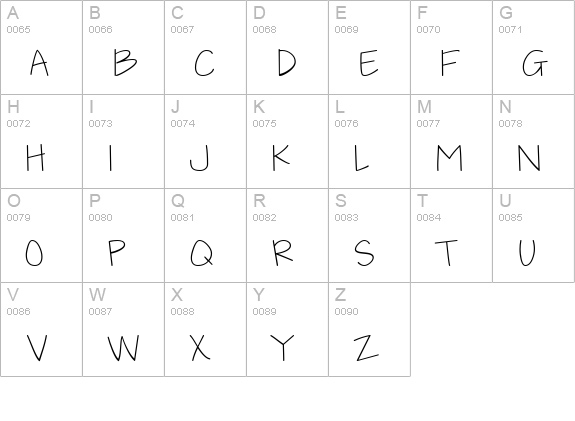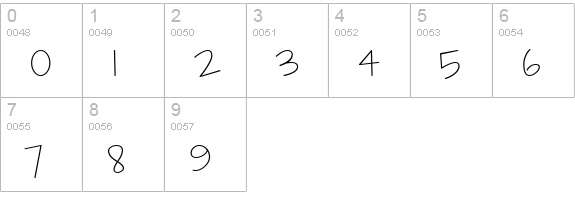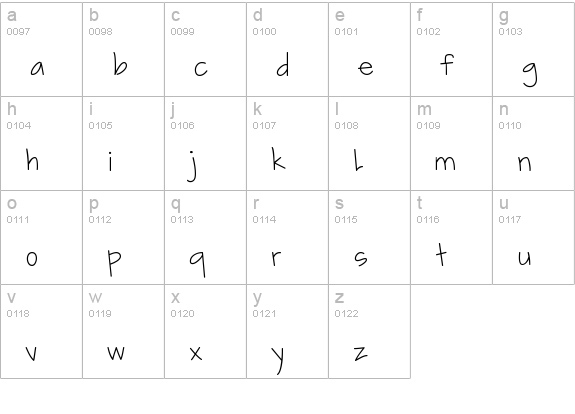
CK Penman Font Details
The CK Penman font is a stylish and elegant typeface that exudes sophistication and charm. With its graceful curves and classic appeal, this font is perfect for adding a touch of class to your designs. Whether you're creating invitations, greeting cards, or branding materials, CK Penman will elevate your projects to the next level. What's even better is that CK Penman is available for free download at FontsMarket.com. You can easily access this beautiful font and use it in your personal and commercial projects without any cost. Don't miss out on the opportunity to enhance your designs with the timeless beauty of CK Penman. Download it now and let your creativity shine!